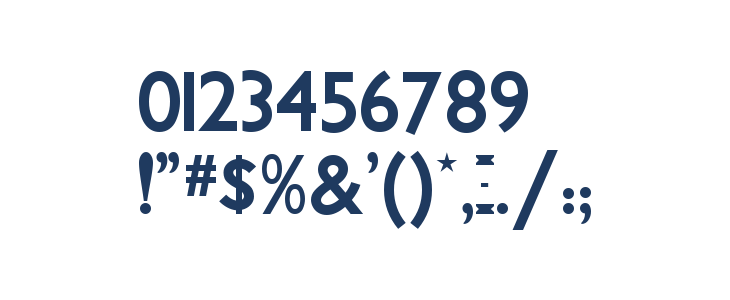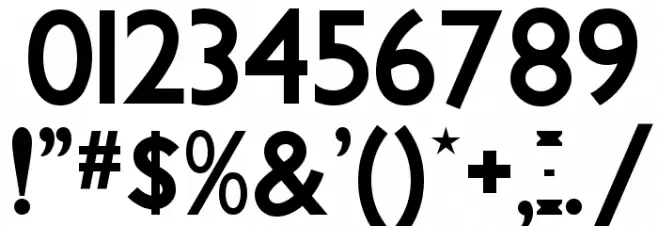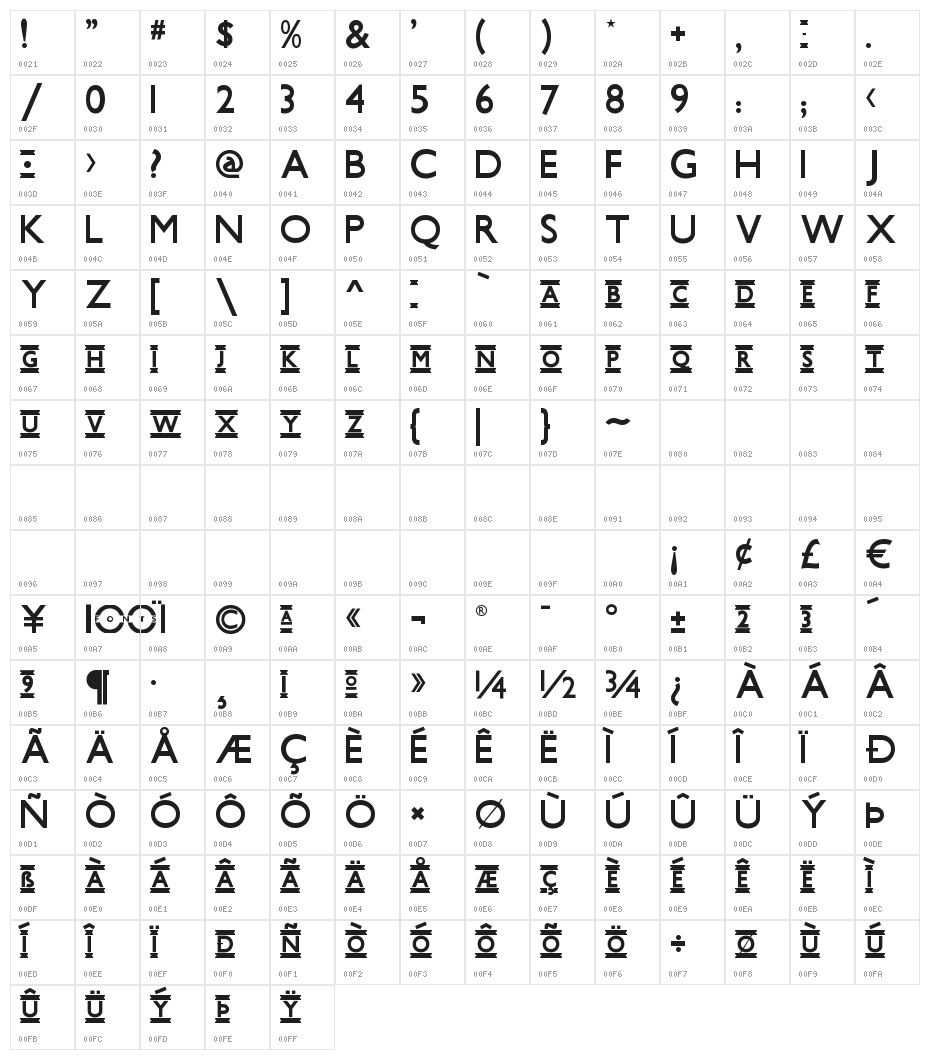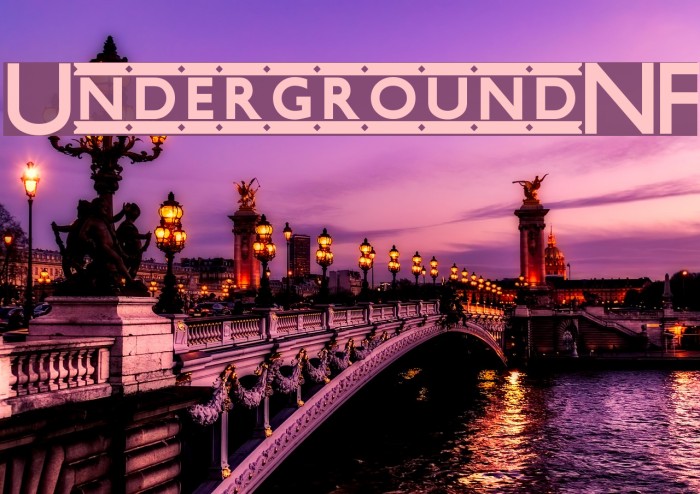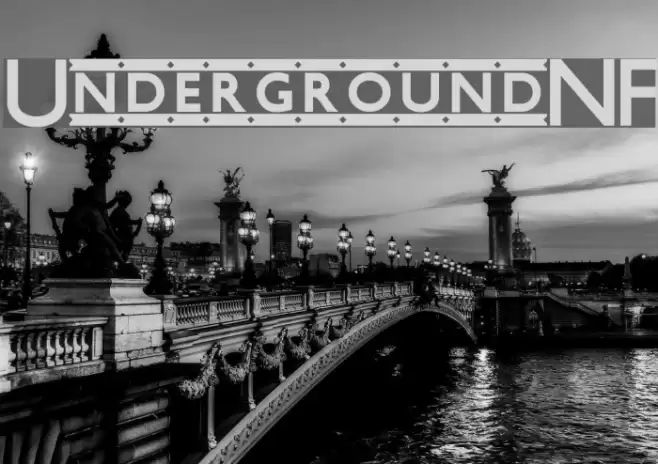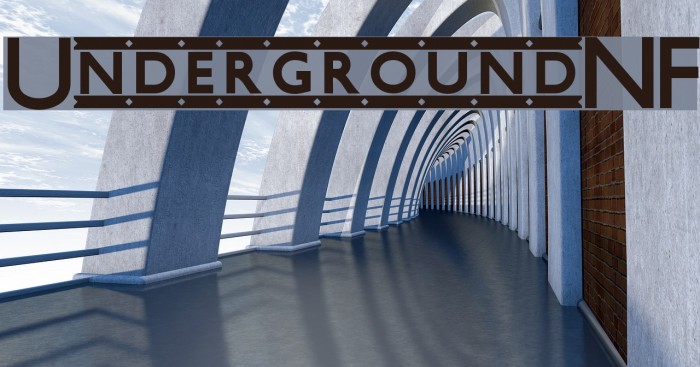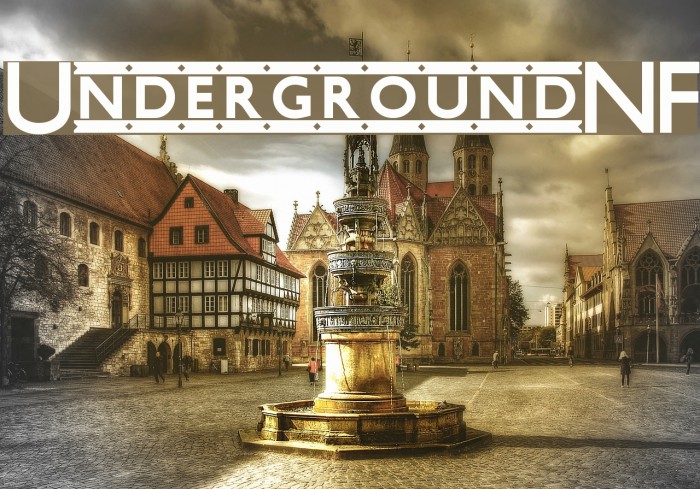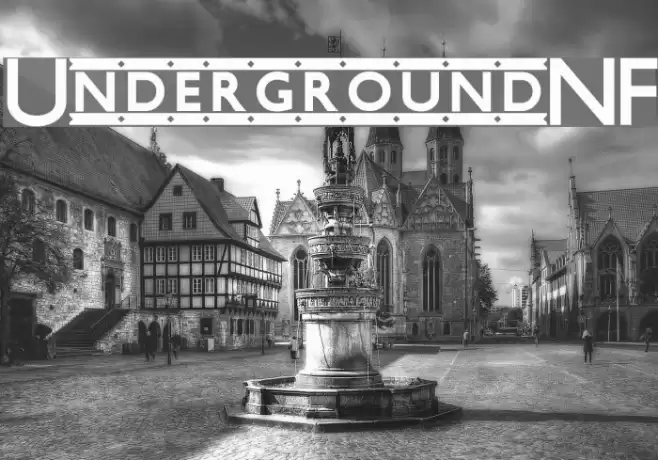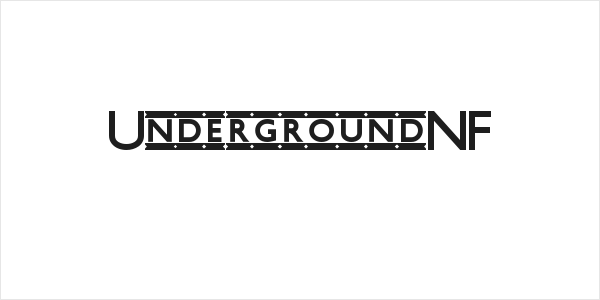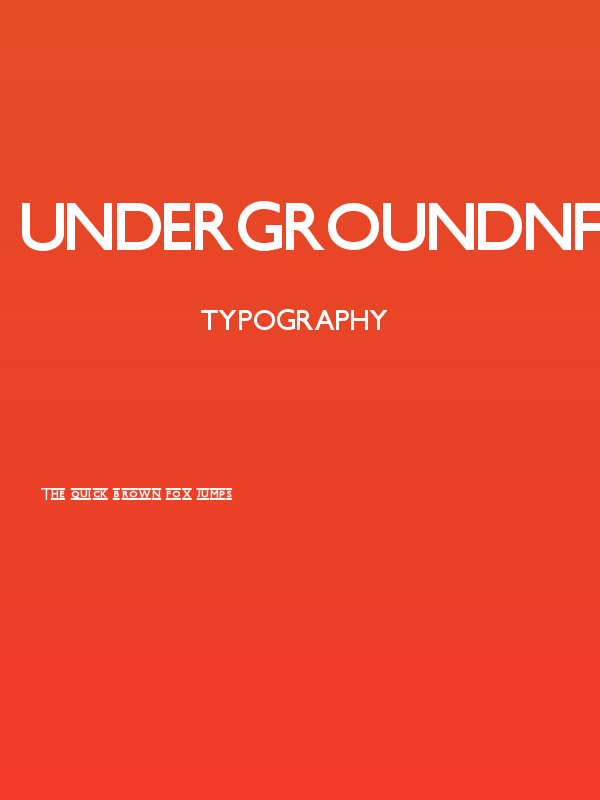
UndergroundNF Font
UndergroundNF Description
This font features a bold, geometric sans-serif style with clean, straight lines and a modern aesthetic. The uppercase letters are uniform in height, providing a strong and structured appearance. The numerals are equally bold, maintaining the geometric consistency seen in the alphabet. Special characters are designed with the same boldness, ensuring a cohesive look across all glyphs. The font's simplicity and clarity make it highly legible, suitable for various design applications.
Use CaseHeadlines, Logos, Signage
Proposed ProjectsIdeal for branding, signage, posters, and any project requiring a modern, bold typeface.